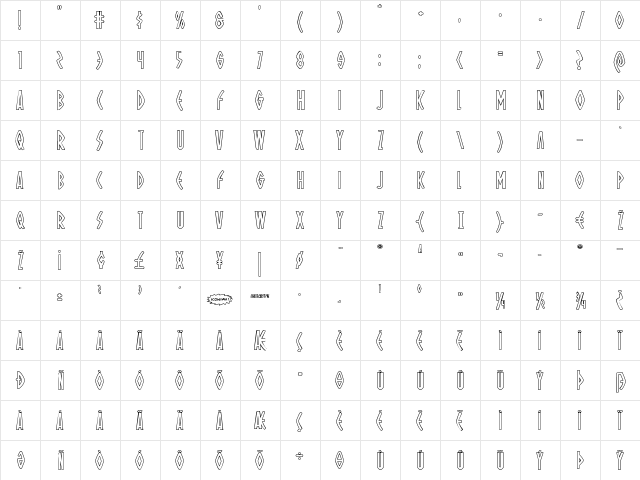
Oh Mighty Isis Outline Regular
Design Context for Oh Mighty Isis Outline Typeface
Oh Mighty Isis Outline is built around its visual character rather than neutral utility — its distinctive forms are designed to make an impression at display sizes.
Font Pairing: Pair with a clean neutral sans-serif for body copy to let Oh Mighty Isis Outline's character lead without overwhelming the composition.
Pro Tip: Use Oh Mighty Isis Outline exclusively at display sizes — it was designed to be seen, not read at length. Let a neutral companion handle body copy.